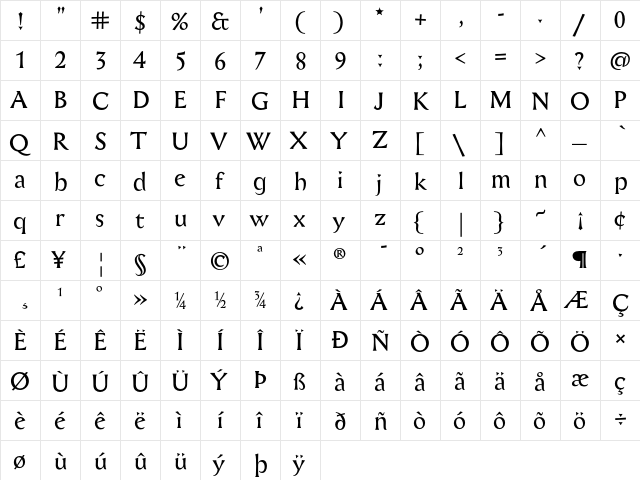
Aichel Regular
| Designer | Frantisek Storm |
Design Context for Aichel Typeface
Aichel offers clean, dependable letterforms without strong stylistic allegiance, making it a practical choice for designers who need flexibility.